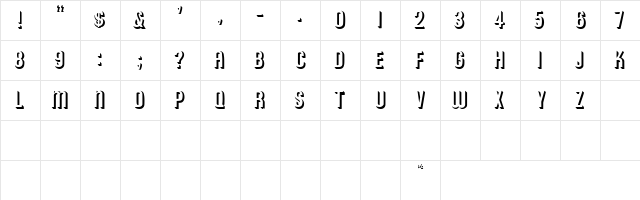
RoundedRelief Normal
Design Context for RoundedRelief Typeface
RoundedRelief uses gentle rounded endings to create a warm, inviting typographic personality — less corporate than geometric sans, more refined than playful display fonts.
Well-suited to UI design, mobile interfaces, and any brand that wants approachability without sacrificing clarity.
Font Pairing: Pairs well with a rounded or humanist sans for body copy, maintaining the friendly tone without relying on RoundedRelief to carry extended reading.
Pro Tip: Use RoundedRelief for UI elements, app interfaces, and anywhere a friendly, approachable tone needs to be maintained without sacrificing clarity.